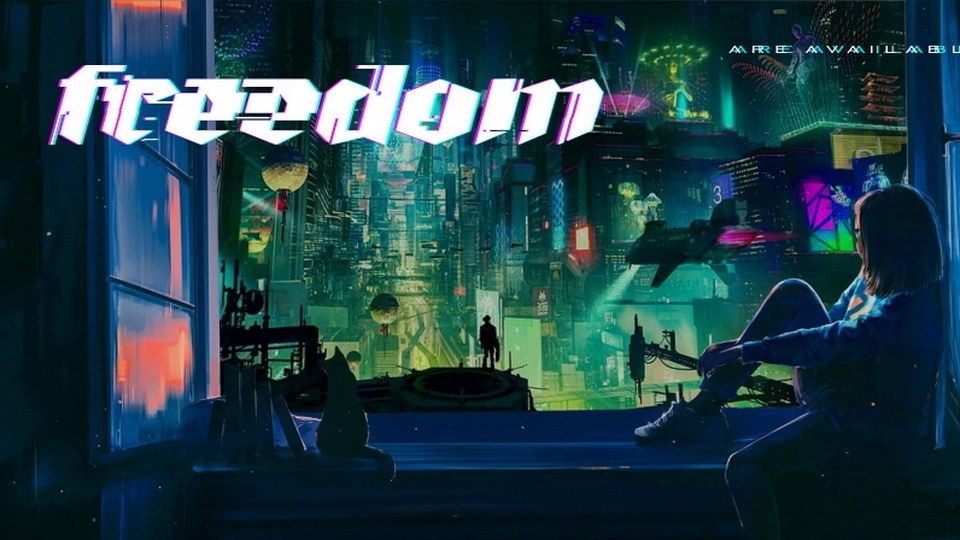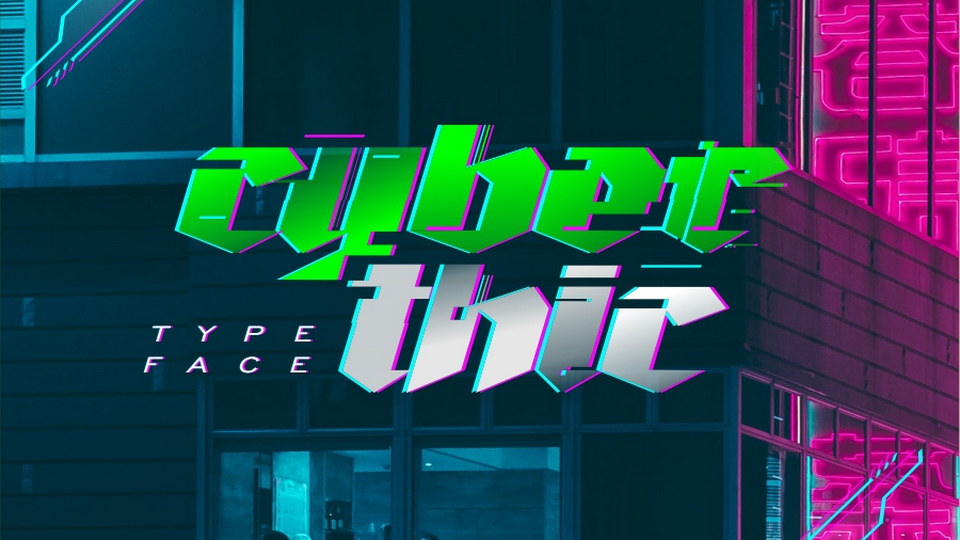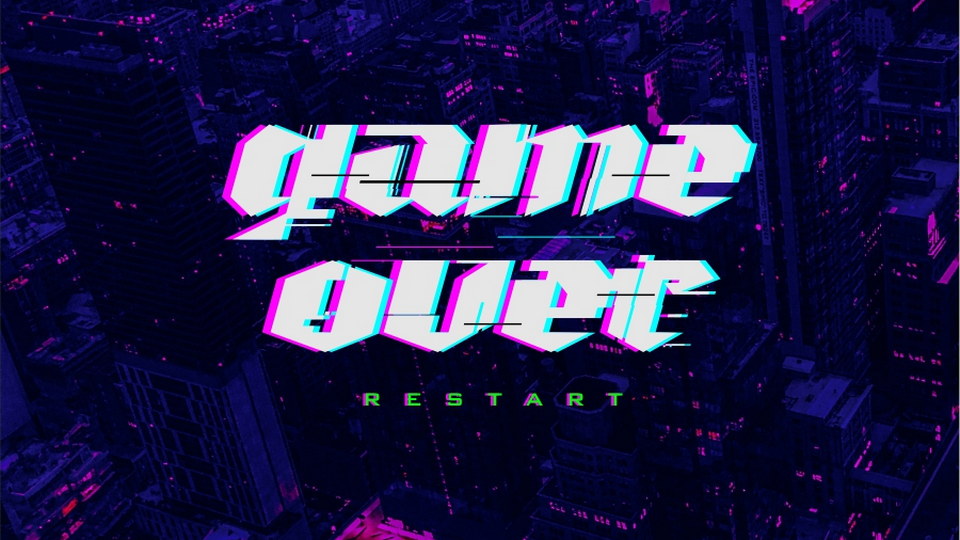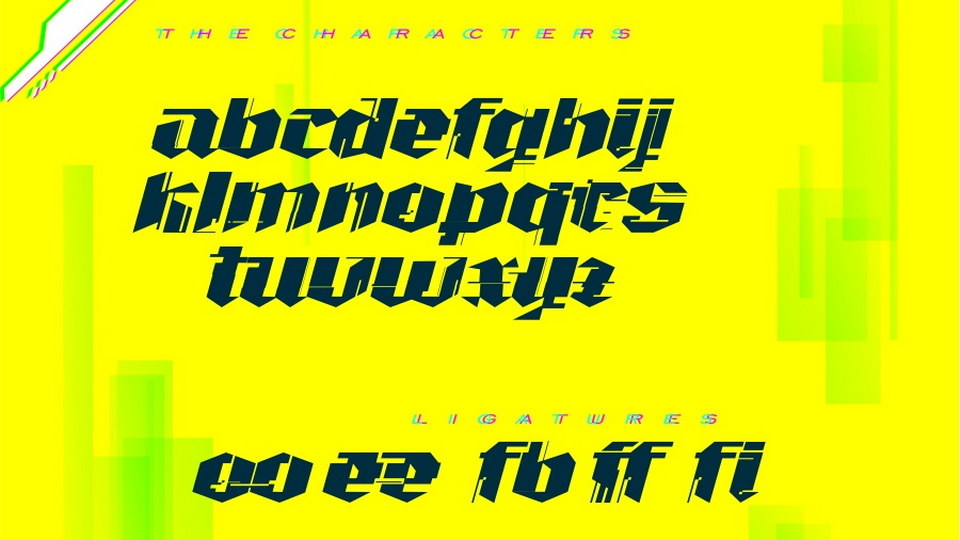
Cyberthic Font
Cyberthic is a modern digital gothic typeface that comes from decorative blackletter font. It stands for cyber gothic.
Cyberthic typeface inspired by Cyberpunk 2077 and Textura blackletter style, a mixture between rush and futuristic vibes designs.
Cyberthic suits best for headline, edges letterhead, tee shirt designs, posters, logo, and many more.
Designed by: Blackerning Studio